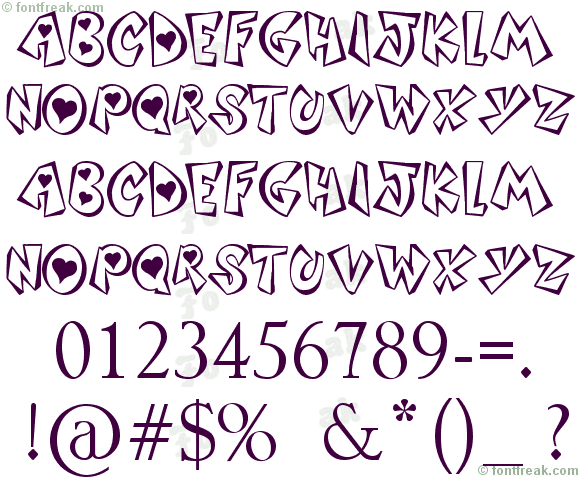
Sound Heart
The Sound Heart font, designed by Jonathan S. Harris, is a distinctive display typeface that combines playful elements with a touch of whimsy. This font features a unique blend of rounded and angular shapes, characterized by its bold stroke weight and contrasting elements that create a lively, engaging appearance. The letters are adorned with heart motifs, adding a decorative flair that makes the typeface especially charming. The spacing between characters is well-considered, allowing for legibility while maintaining a fun, informal vibe.
Best suited for creative projects, the Sound Heart font excels in a variety of applications. It is perfect for wedding invitations where a romantic touch is desired, as well as for children's party invitations that call for a playful aesthetic. Additionally, this font can bring a vibrant energy to restaurant menus, particularly for establishments that focus on a fun dining experience. Graphic designers can also utilize Sound Heart in social media graphics, where eye-catching typography can enhance engagement. Content creators looking to add a unique voice to their branding will find this font particularly appealing.
What truly sets the Sound Heart font apart is its joyful character and the way it captures attention through its quirky design. The combination of heart shapes and bold strokes creates a memorable typography choice that resonates with audiences, making it an excellent addition to your font collection. For those interested in incorporating this unique typeface into their work, a Sound Heart font free download is readily available, inviting creativity and expression in every project.